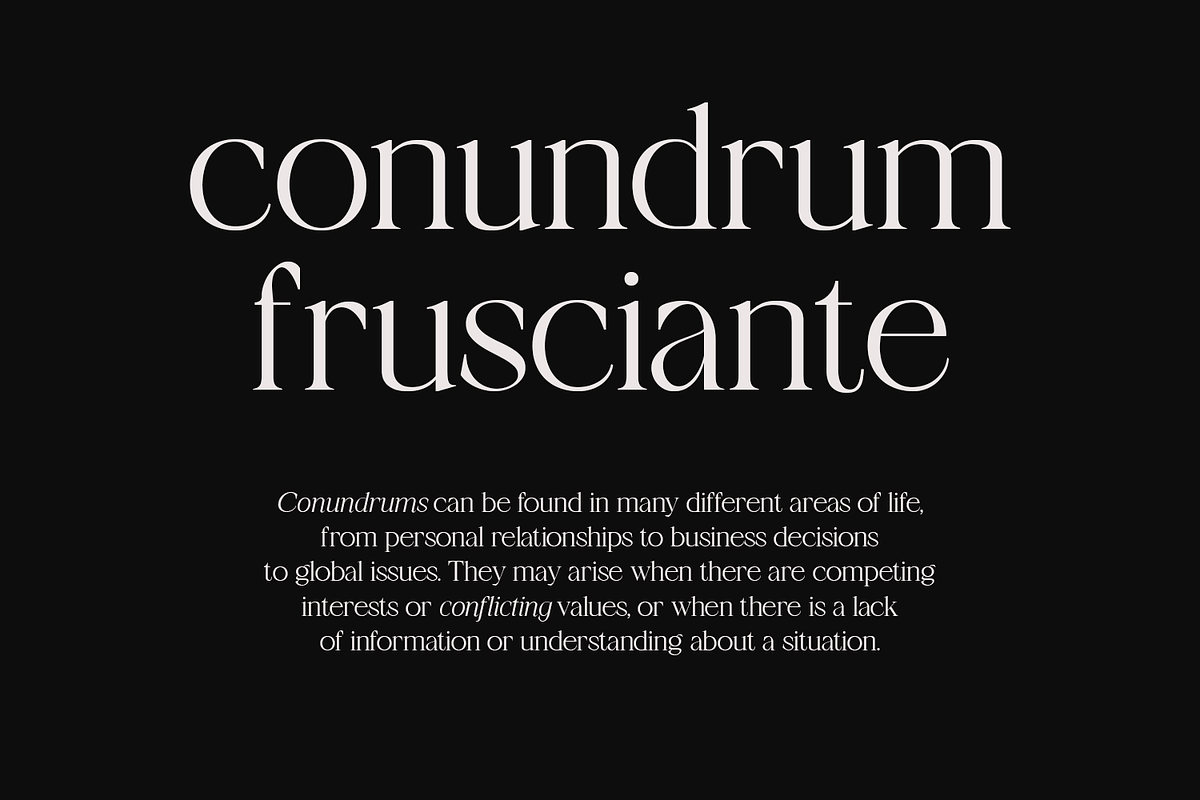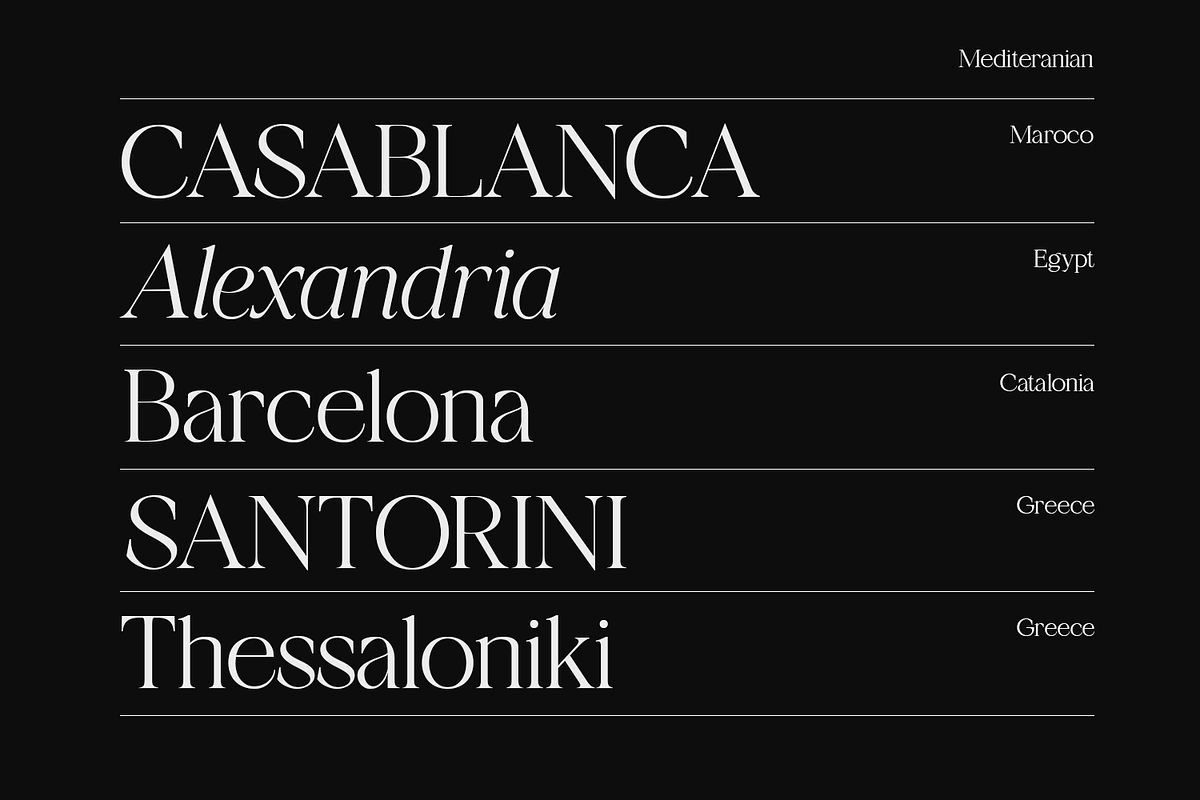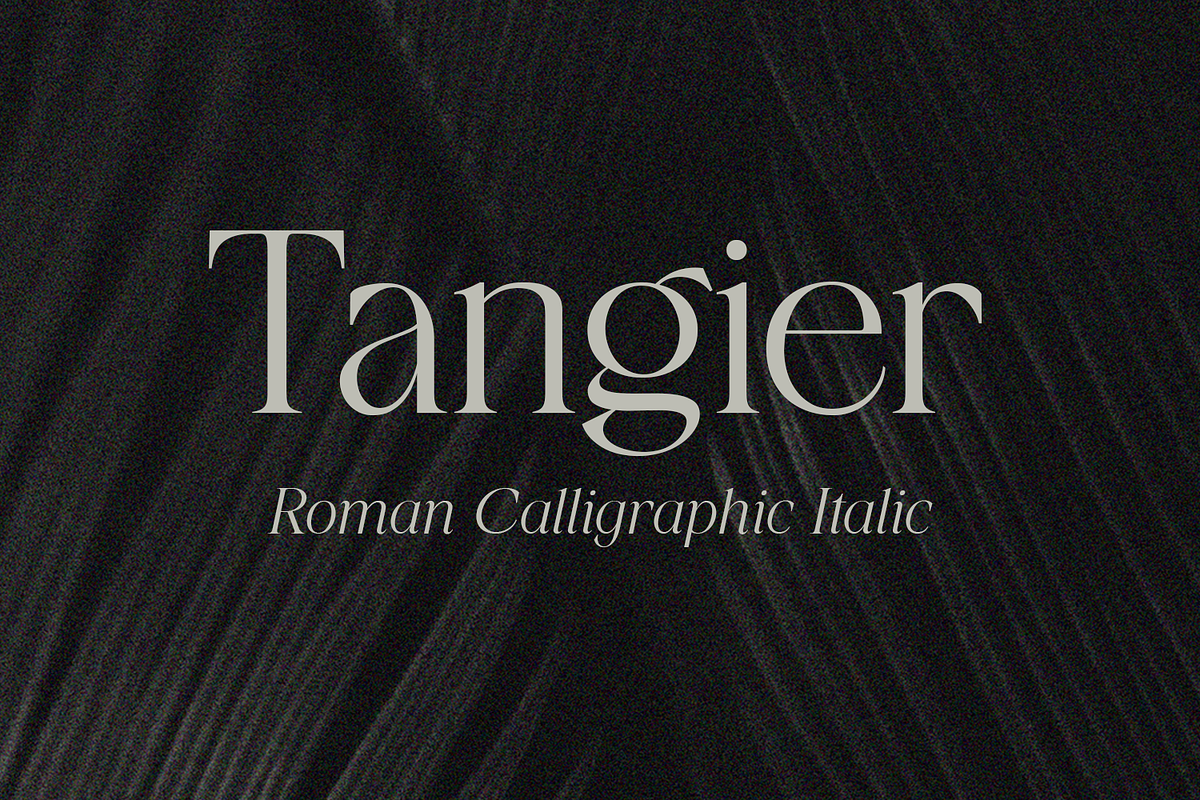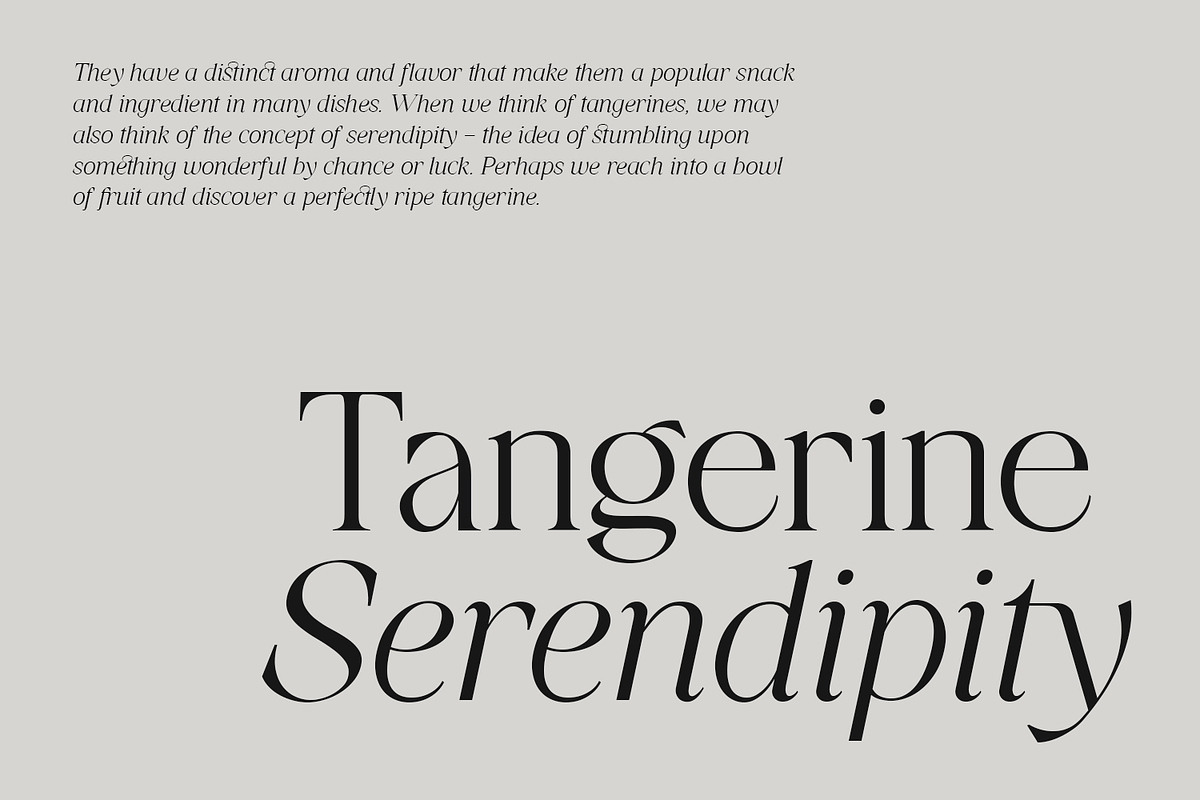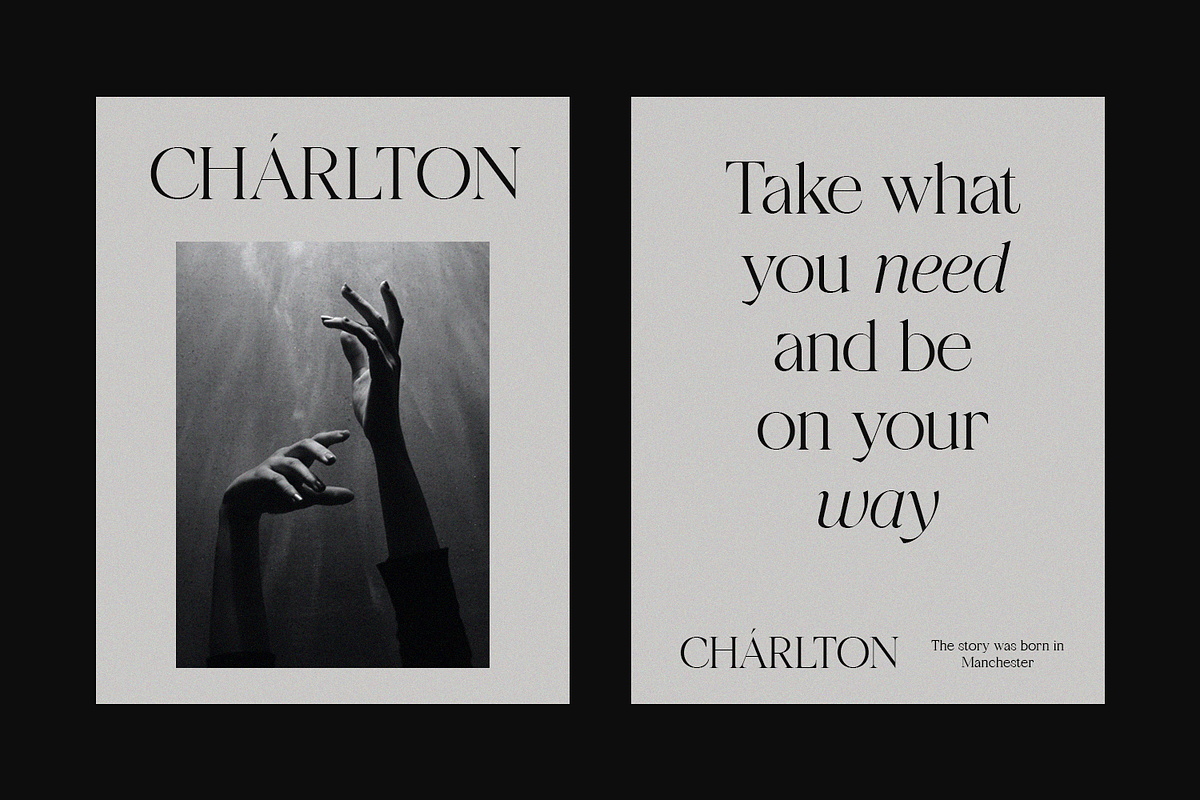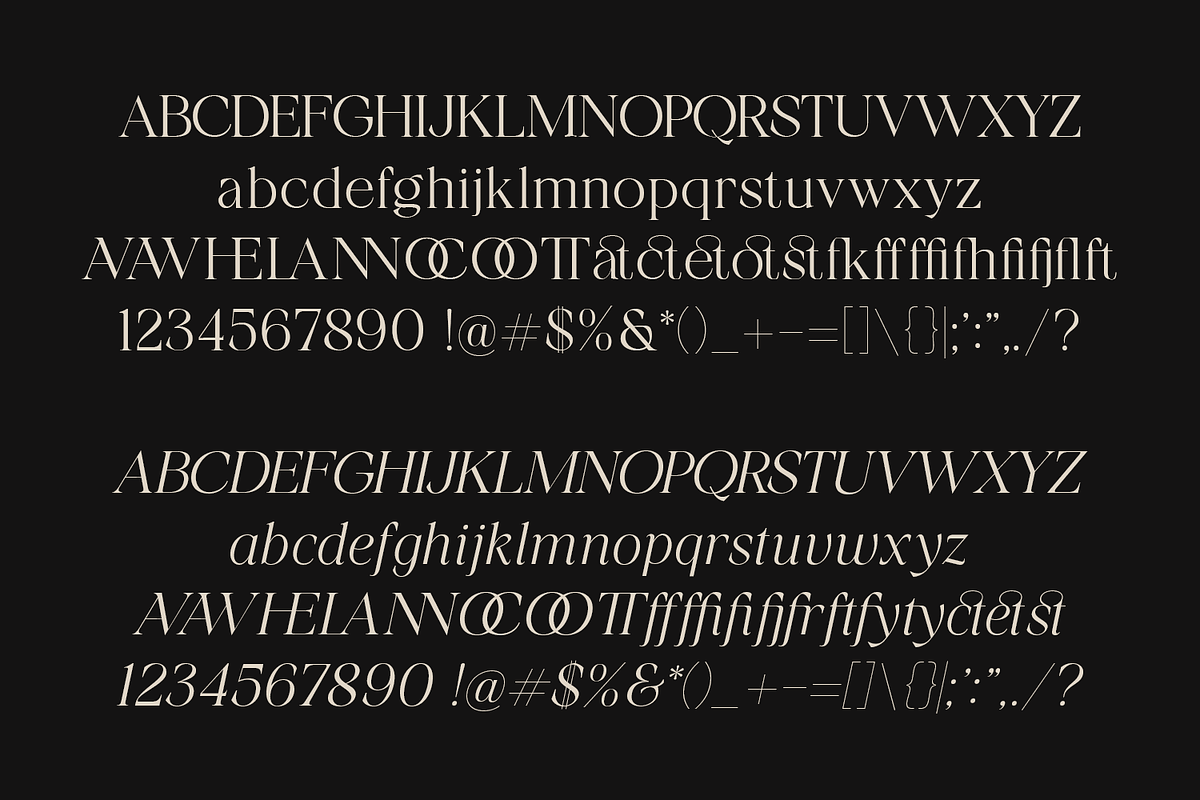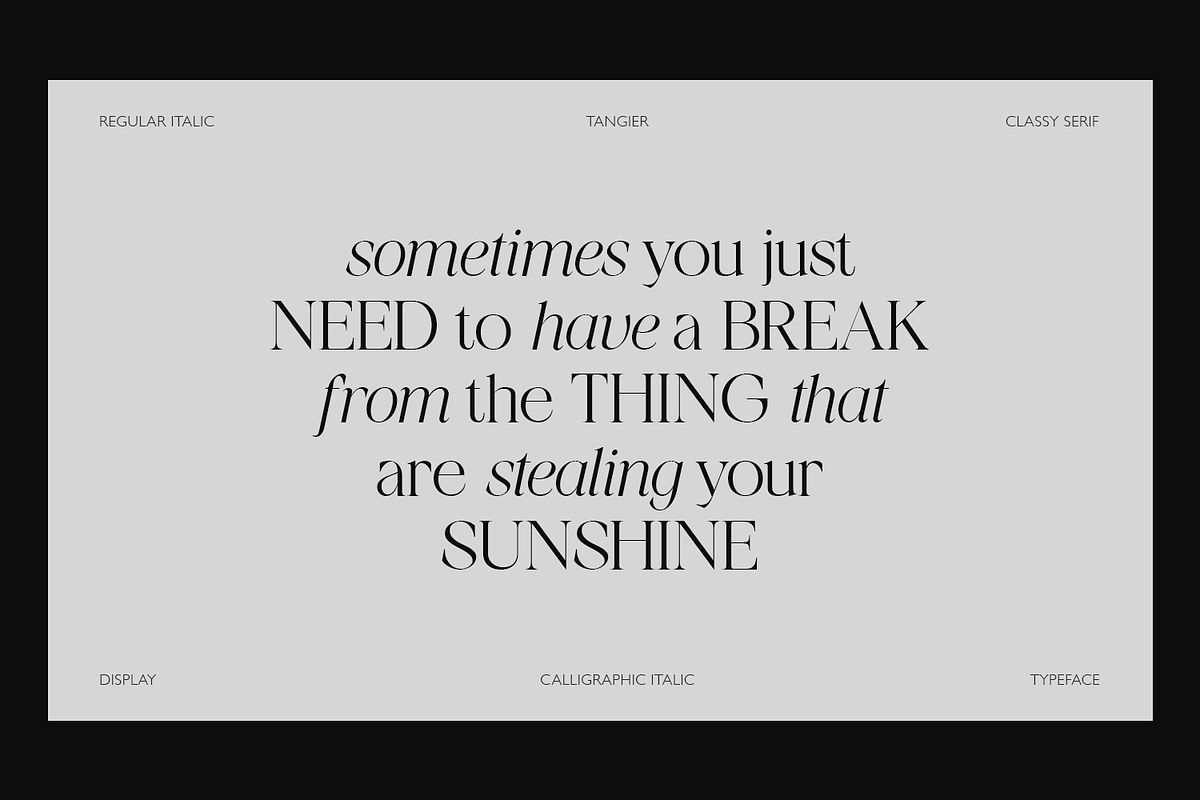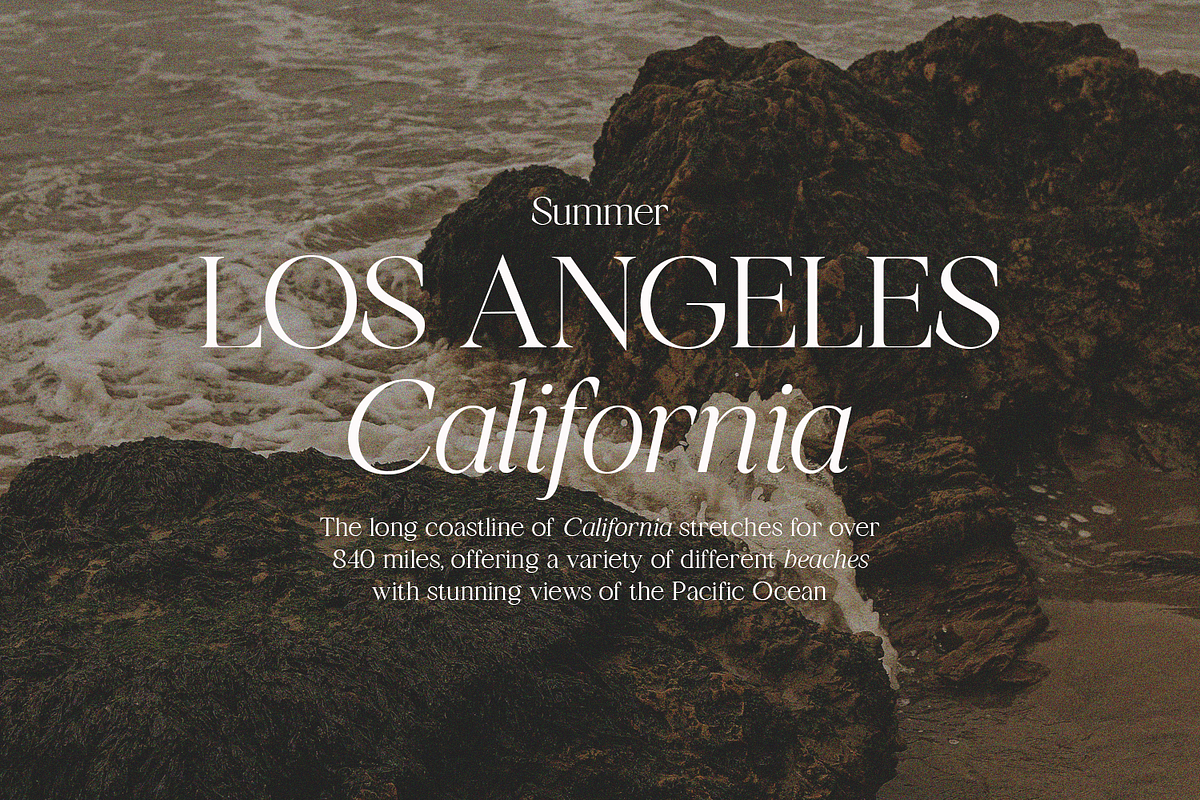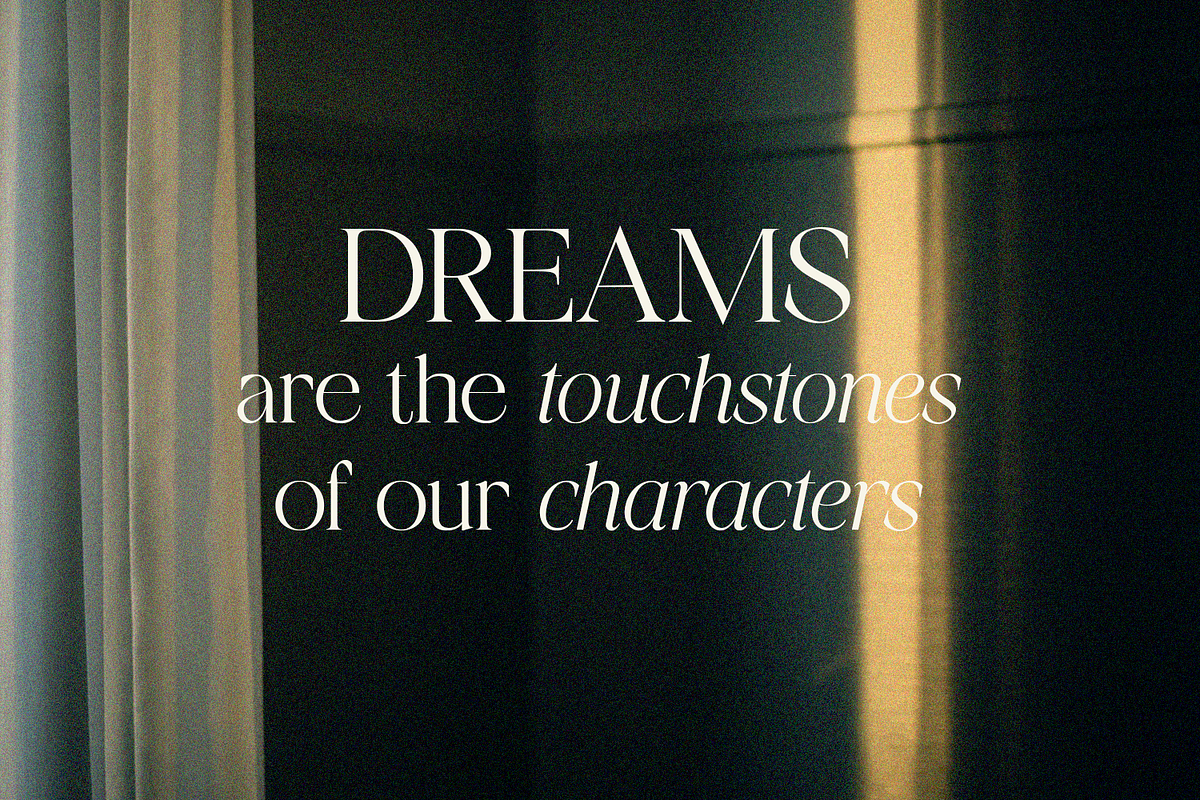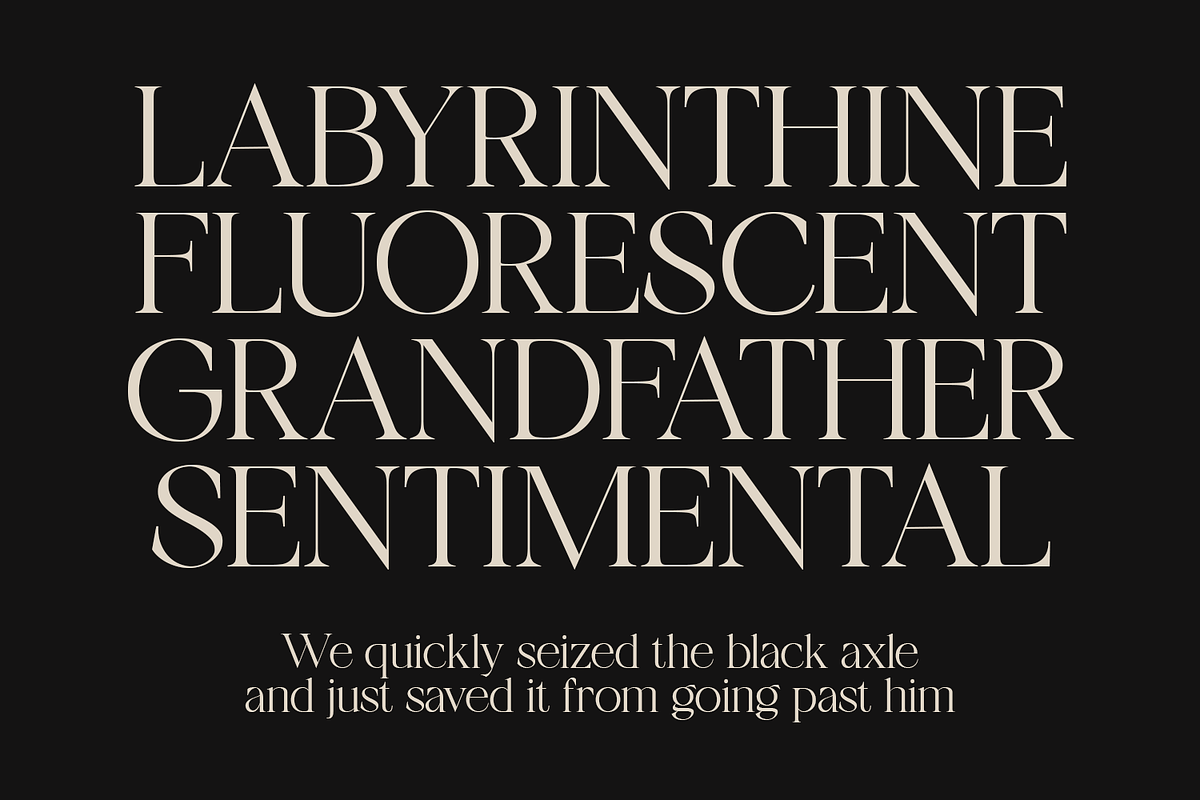
Tangier - Classy Modern Serif
Tangier is a contemporary display serif font that embodies a refined sense of style and elegance. With its sleek and modern design, Tangier is perfect for use in a variety of creative projects, such as logos, titles, and headlines.
The font comes in two styles - regular and italic - both of which feature strong contrast between thick and thin lines. The regular style is perfect for creating attention-grabbing headlines or adding a touch of sophistication to body text, while the italic style can be used to add a stylish flair to subheadings or pull quotes.
Tangier's strong serifs give it a classic and timeless feel, while its modern design adds a touch of contemporary flair. Its versatility makes it suitable for use in a wide range of settings, from high-end branding and marketing materials to editorial and fashion layouts.